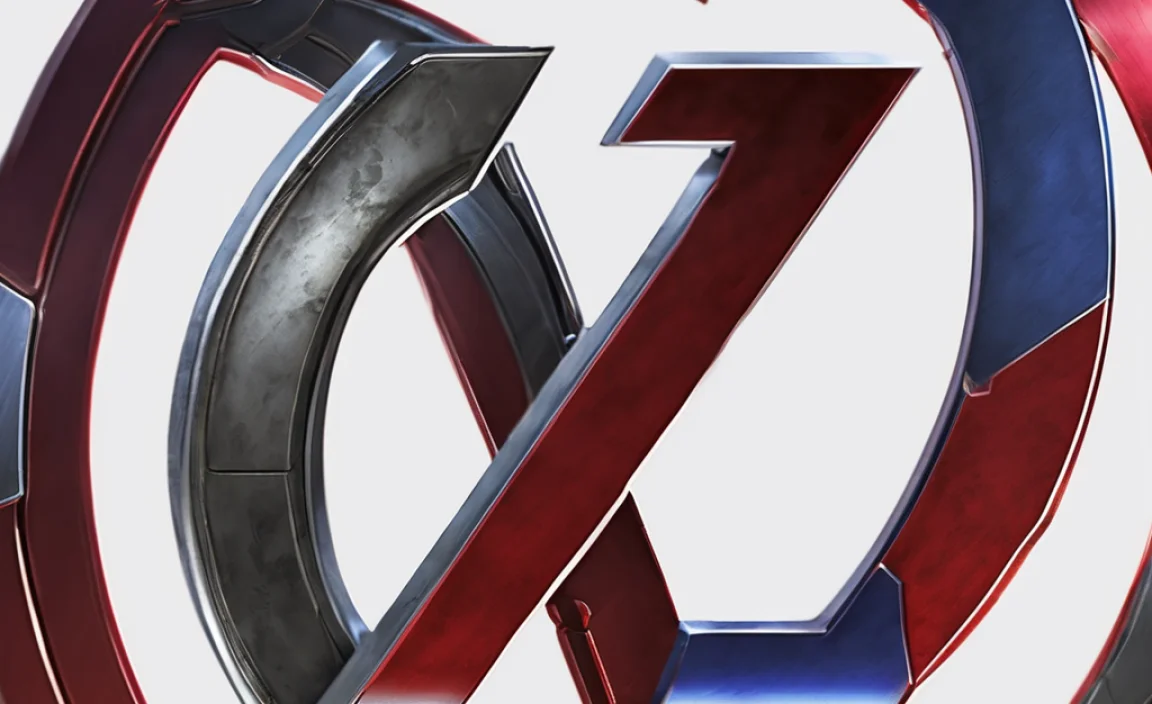
Unlock the Iconic Avengers Endgame Font Today!
Have you ever paid close attention to the font used in movies? One font that stands out is the Avengers Endgame Font. It’s bold, cool, and instantly recognizable. But there’s more to it than meets the eye. How did it become so famous? Let’s find out!
• The Avengers Endgame Font is bold and powerful.
• This font is used in movie posters and promotions.
• Fans love to use this font for creative projects.
• Avengers Endgame Font adds excitement to designs.
• Knowing the font helps you notice details in movies.
Understanding Avengers Endgame Font Design
The Avengers Endgame Font has a unique design. It captures the movie’s action and excitement. This font is bold, sharp, and has a futuristic look. Designers created it to match the movie’s theme and characters. Every letter looks like it’s ready for battle. This makes it perfect for a superhero film like Avengers Endgame. The font’s design helps grab attention and make the movie unforgettable.
• Bold and striking letters.
• Sharp edges and angles.
• Futuristic and modern style.
• Reflects superhero themes.
• Easy to recognize and use.
Movies often use special fonts to create a unique feel. The Avengers Endgame Font is no exception. It represents strength and courage, much like the Avengers themselves. Fans enjoy using this font for fan art and personal projects. The font’s design plays a crucial role in branding and marketing. You can find it on posters, merchandise, and even in video games.
Fun Fact or Stats : The font was customized for the movie’s logo.
Who Created The Avengers Endgame Font?
Fonts in movies are often designed by talented artists. The Avengers Endgame Font was crafted by experts to fit the movie’s heroic theme. These designers work hard to create something unique. They ensure that the font matches the movie’s style and story. Have you ever tried to design your own font? It’s not easy, but it’s a fun way to be creative. Movie fonts are crucial in making films memorable.
Where Can You Use Avengers Endgame Font?
Many people love to use the Avengers Endgame Font in their designs. It’s popular among fans who enjoy creating posters, t-shirts, and more. Some even use it for school projects or party invitations. Using this font can make your work stand out. Imagine writing your name in the Avengers font! It would look pretty cool, right? This font is available on various online platforms. You can find it and use it for your creative ideas.
What Makes This Font So Special?
Why is the Avengers Endgame Font so special? Its bold design and connection to the movie make it unique. When people see this font, they think of superheroes and epic battles. This font helps build excitement and anticipation for the film. Have you noticed how fonts can change the way you feel about something? The right font can make a big difference! It adds a layer of excitement and adventure to any project.
Avengers Endgame Font in Pop Culture
The Avengers Endgame Font has become a part of pop culture. Fans across the world recognize it instantly. It appears in memes, social media posts, and fan events. This shows how powerful a simple font can be. The font ties into the movie’s success and popularity. People love to see it on merchandise, like t-shirts and toys. This font has become more than just letters; it’s an icon.
• Frequently used in fan art.
• Appears in social media posts.
• Popular at fan conventions.
• Used in themed merchandise.
• Part of movie’s global recognition.
Imagine walking into a store and seeing the Avengers Endgame Font on a shirt. You’d instantly know it’s related to the Avengers. This connection helps build excitement and love for the movie. The font’s role in pop culture is significant. It keeps the Avengers’ spirit alive. The font isn’t just for the movies; it’s for fans all around the world.
Fun Fact or Stats : The font is used in worldwide fan events.
How Does The Font Connect To The Movie?
Every movie font tells a story. The Avengers Endgame Font connects directly to the film’s themes. It represents bravery, teamwork, and heroism. The font’s design matches the movie’s epic nature. When fans see this font, they feel a sense of adventure. It’s as if they’re part of the Avengers’ journey. Have you ever felt inspired by a font? This one does just that, making fans feel like heroes.
Why Do Fans Love The Avengers Font?
Fans love the Avengers Endgame Font for its connection to their favorite heroes. It reminds them of thrilling moments from the movie. Using this font helps fans express their love for the Avengers. Imagine writing a letter in the Avengers font. It could look like a message from a superhero! Fans enjoy using this font in creative ways, showing their passion and excitement for the Marvel universe.